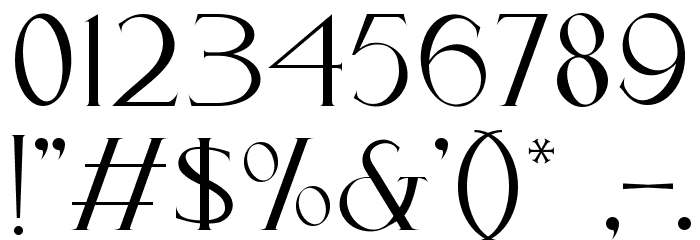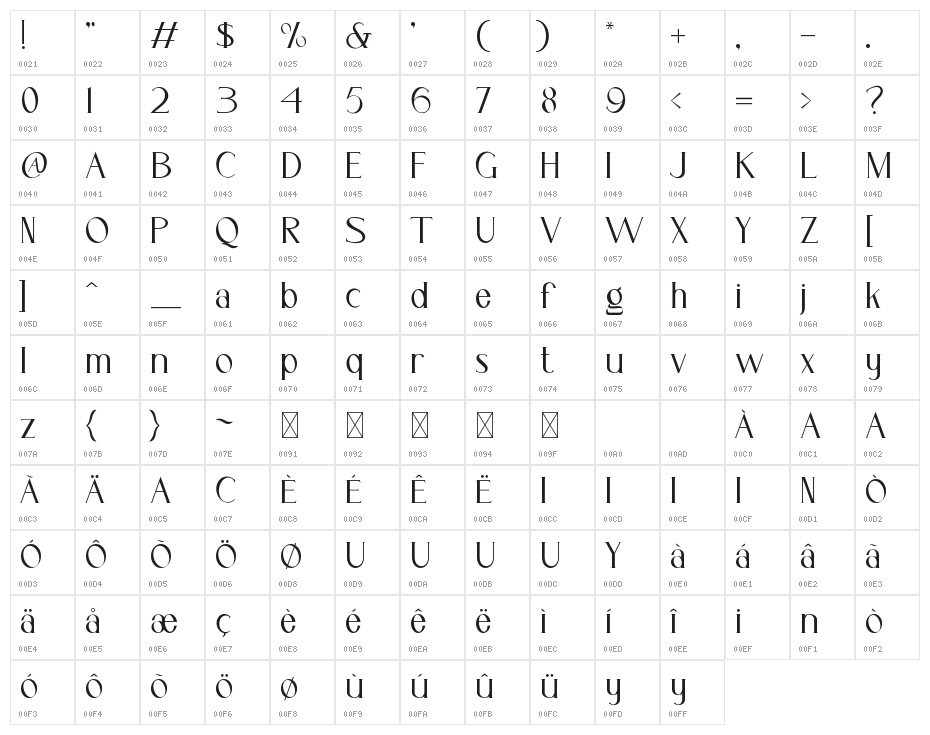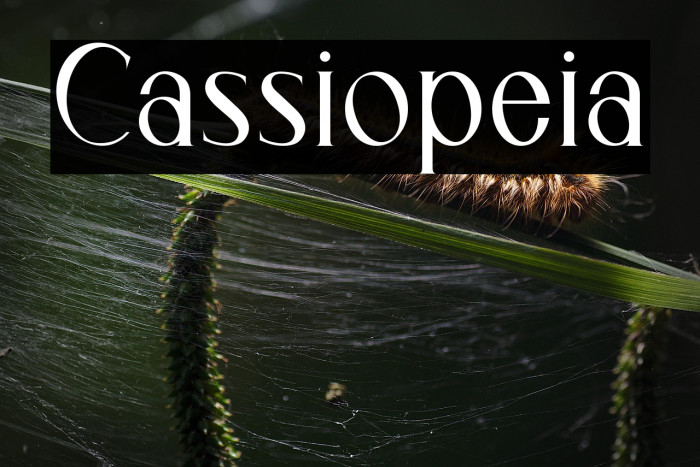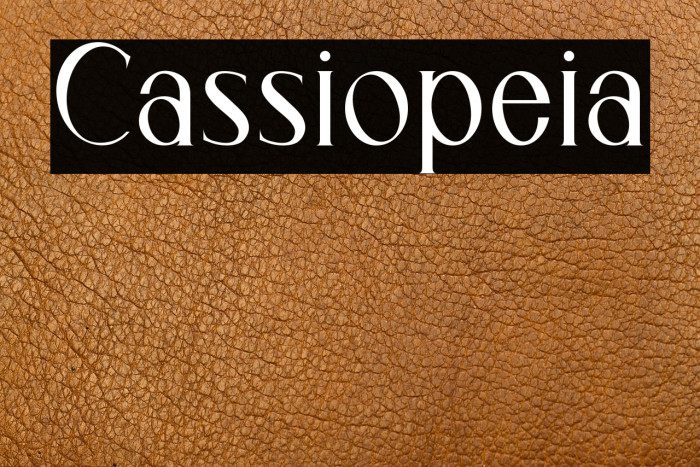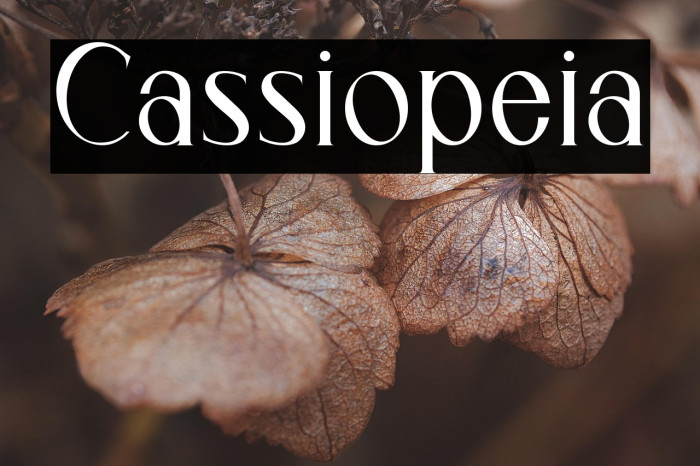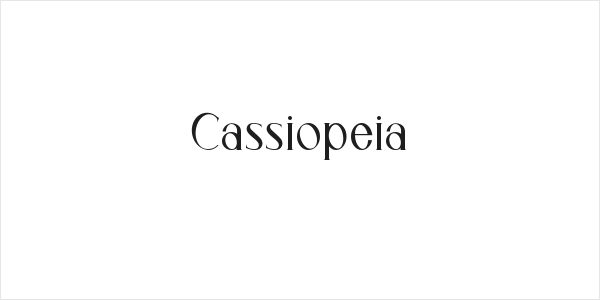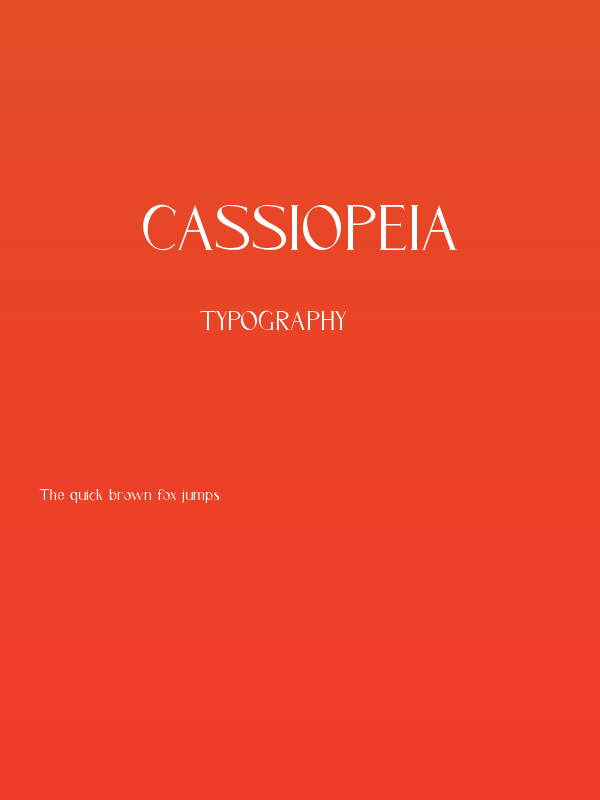
Cassiopeia Font
Cassiopeia Description
This font exudes a modern elegance with its high contrast between thick and thin strokes. The serif design is refined, featuring sharp, clean lines that give it a sophisticated appearance. The uppercase letters are tall and commanding, while the lowercase letters maintain a harmonious balance with their slightly rounded forms. The numerals are distinct and clear, making them easily readable. Special characters are crafted with the same attention to detail, ensuring consistency across all glyphs. This font is versatile, suitable for both digital and print media, and can elevate the aesthetic of any project.